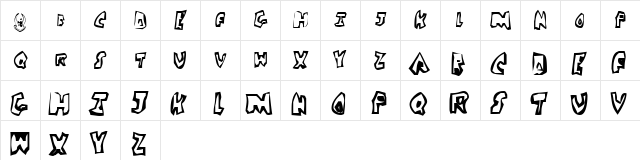
DickSoup Normal
Design Context for DickSoup Typeface
DickSoup is a composed and adaptable typeface that performs quietly and consistently across a wide range of design contexts.